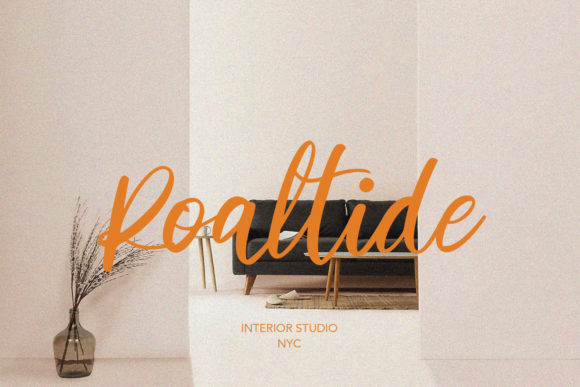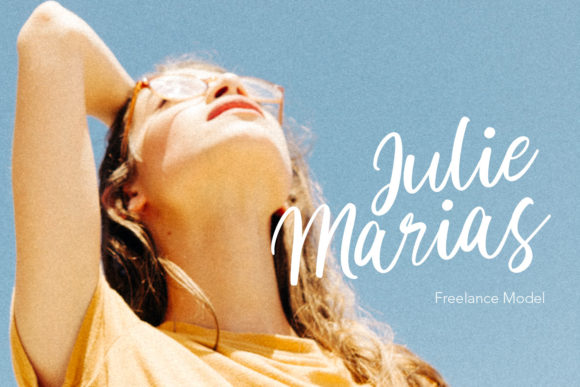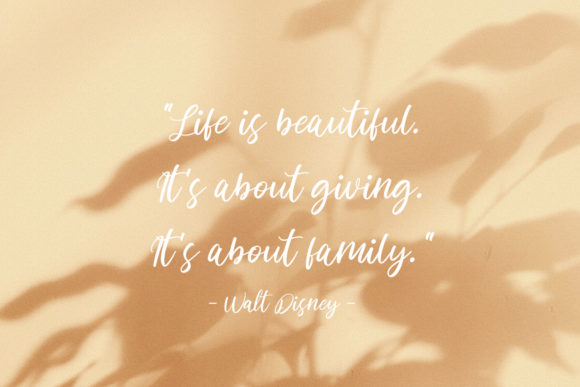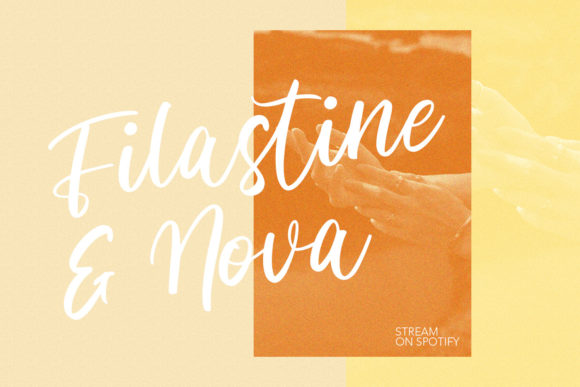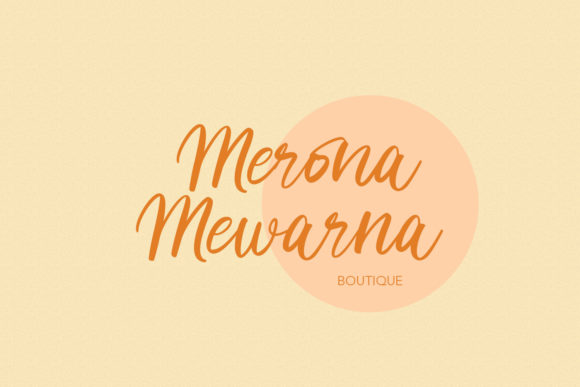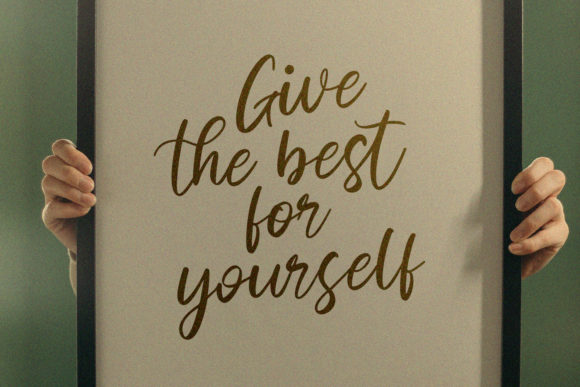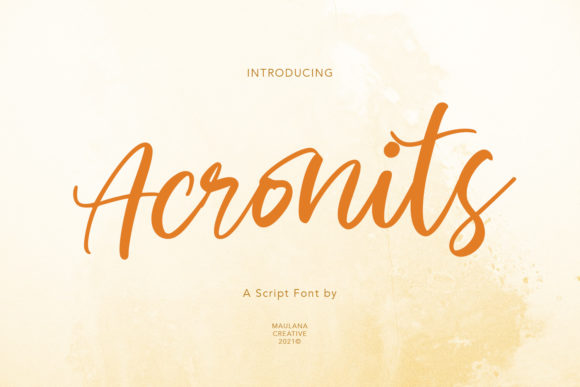
The Acronits Font: A Lovely Addition to Your Design Arsenal
Have you ever been in the middle of a design project, and suddenly, you’re stuck on finding the perfect font? I recall a wedding invitation project where I struggled to find a font that conveyed the elegance and playfulness my client desired. That’s when I stumbled upon the Acronits font, a lovely and flowing paint-brushed script font that has since become a staple in my design toolkit.
An Honest Review of Acronits Font
- ✨ Beautifully crafted, flowing script that looks stunning on various designs
- ✅ Highly versatile and suitable for a range of projects, from wedding invitations to logos
- ✅ Easy to read and understand, even in smaller font sizes
- ✨ Supports OpenType features, glyphs, and stylistic alternates for added customization
While Acronits is an excellent font, there are a few minor limitations to consider:
- ⚠️ May not be suitable for very formal or traditional designs, as it has a more playful tone
- 🤔 Some users may find the font a bit too ‘loopy’ or cursive for their taste
The Designer Inspiration Behind Acronits
While the true story behind Acronits’ creation remains a mystery, it’s easy to imagine a designer inspired by the fluid movements of paintbrush strokes and the elegance of handwritten scripts. Perhaps they sought to craft a font that would bring a touch of warmth and personality to various designs, from wedding invitations to logos.
Q: What type of designs is Acronits best suited for?
Acronits is versatile and can be used for various designs, including wedding invitations, thank-you cards, greeting cards, logos, and more.
Q: Does Acronits support OpenType features?
Yes, Acronits supports OpenType features, including swashes, ligatures, and stylistic alternates, allowing for added customization.
Q: Is Acronits easy to read?
Yes, Acronits is generally easy to read, even in smaller font sizes, making it suitable for a range of applications.